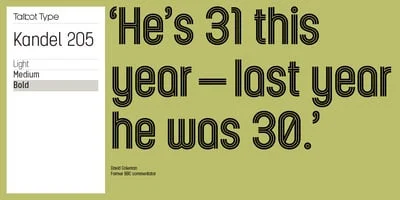
Kandel 205 Font
Kandel 205 Font is perfect for precision engineering documentation, technical specification manuals, scientific research publications, industrial design blueprints, aviation maintenance guides, laboratory equipment labeling, pharmaceutical packaging, medical device interfaces, aerospace project materials, and any projects that require systematic typography with technical accuracy and scientific precision.
What makes Kandel 205 Font exciting is its methodical design that embodies the exacting standards and systematic approach of scientific research with letterforms engineered for maximum clarity and data integrity in technical communications. This precise typeface features clinical characteristics with laboratory-grade accuracy that ensures error-free information transfer in critical applications where precision can mean the difference between success and failure. The font's scientific character makes it perfect for research institutions and technical organizations seeking to communicate expertise, reliability, and the meticulous attention to detail that defines world-class scientific and engineering work.
Kandel 205 Font family includes laboratory-grade weight variations featuring thin, light, regular, medium, and bold options. The font family also offers technical italic versions with enhanced data clarity, along with monospace variants optimized for coding and data applications. Special features include scientific symbols, mathematical operators, and precision indicators that enhance the technical atmosphere of research-focused design applications and systematic documentation.
Engineer precision with Kandel 205 Font and calibrate your communications with typography that meets the exacting standards of scientific research and delivers laboratory-quality accuracy in every technical detail. This systematic typeface performs like precision instrumentation across all scientific applications, ensuring your message communicates with the reliability and accuracy that critical research demands. Download Kandel 205 Font today and quantify your design success with typography that represents the gold standard of technical communication, creating precise connections with audiences who demand the systematic excellence and methodical accuracy that only rigorous scientific standards can provide.